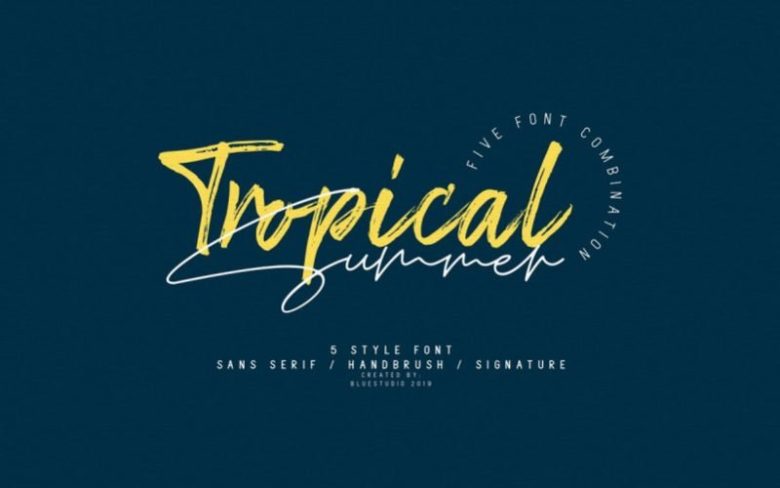
Tropical Summer Signature Font
Tropical Summer is perfect combination of five fonts all your design project needs. Get inspired by its classy appearance!